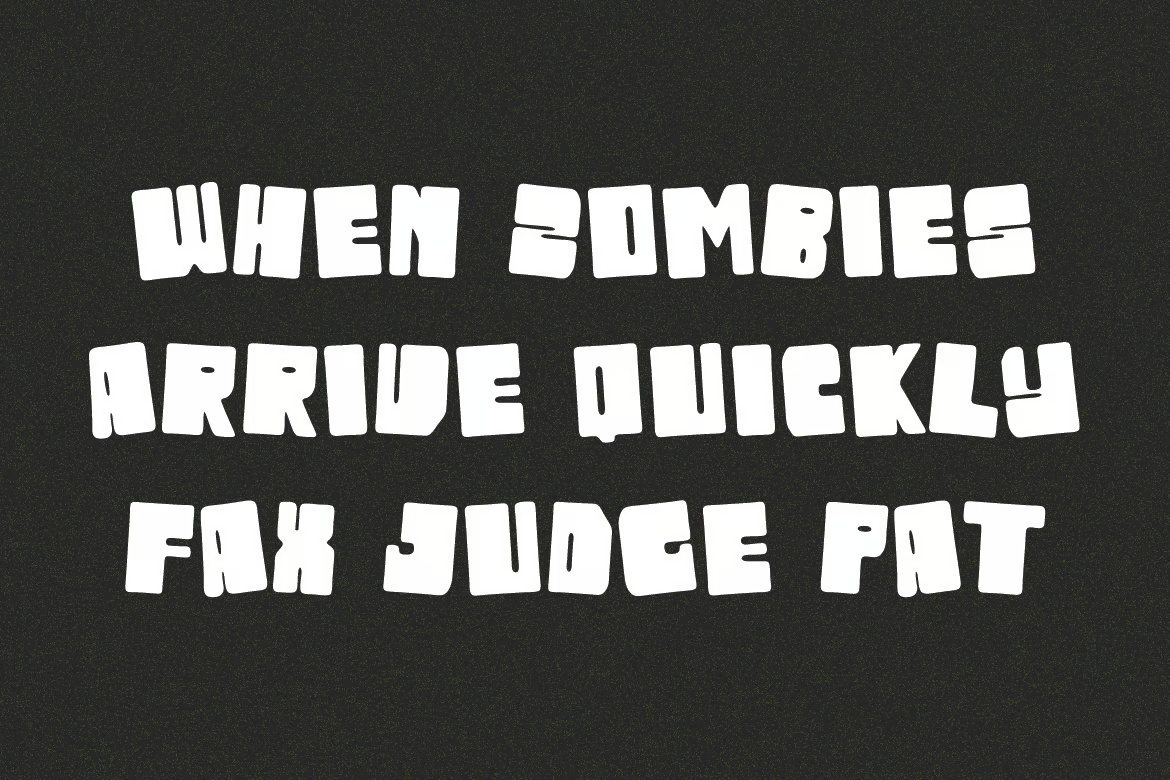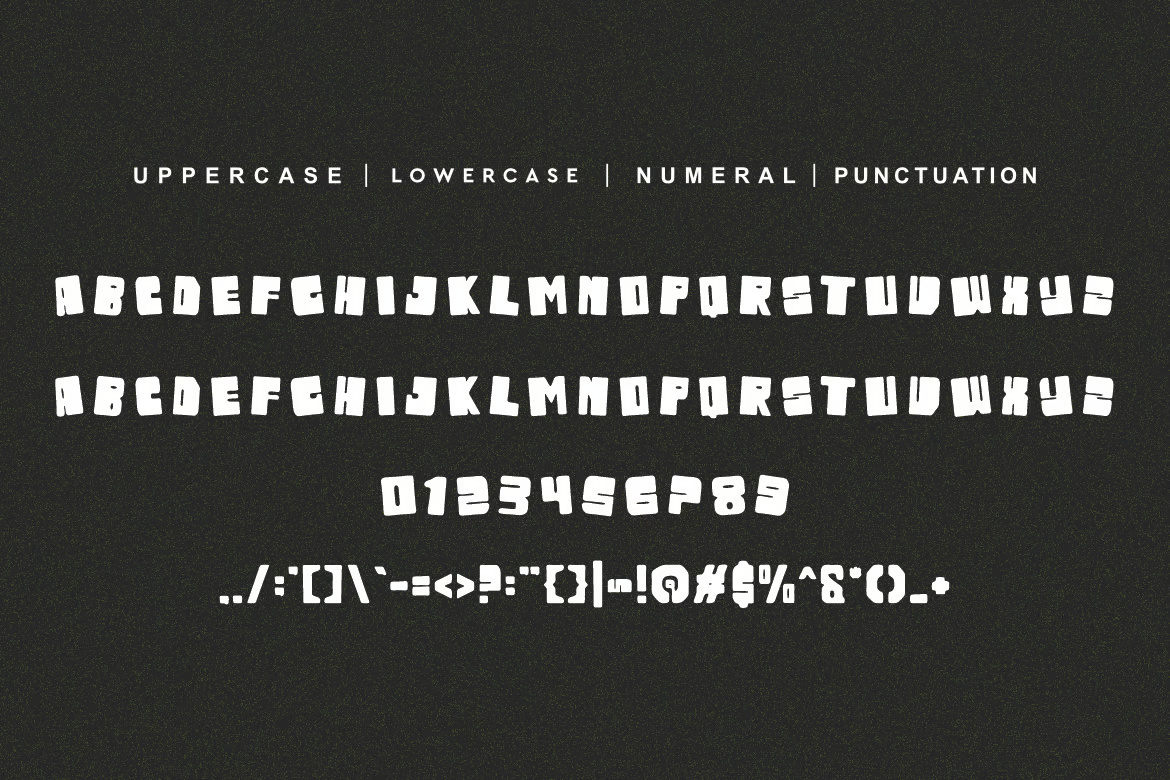
Kidsen Nekoin – Kids & Bold Font
Kidsen Nekoin Font is a unique and eye-catching typeface, perfect for adding a bold and playful touch to your designs. Whether you’re working on labeling, movie screens, posters, movie titles, gig flyers, album covers, logos, or other creative projects, this font brings a distinctive character that stands out. Its stylish and dynamic design makes it a great choice for projects that need a fun yet professional appeal.
Kidsen Nekoin – Kids & Bold Sans-Serif Font